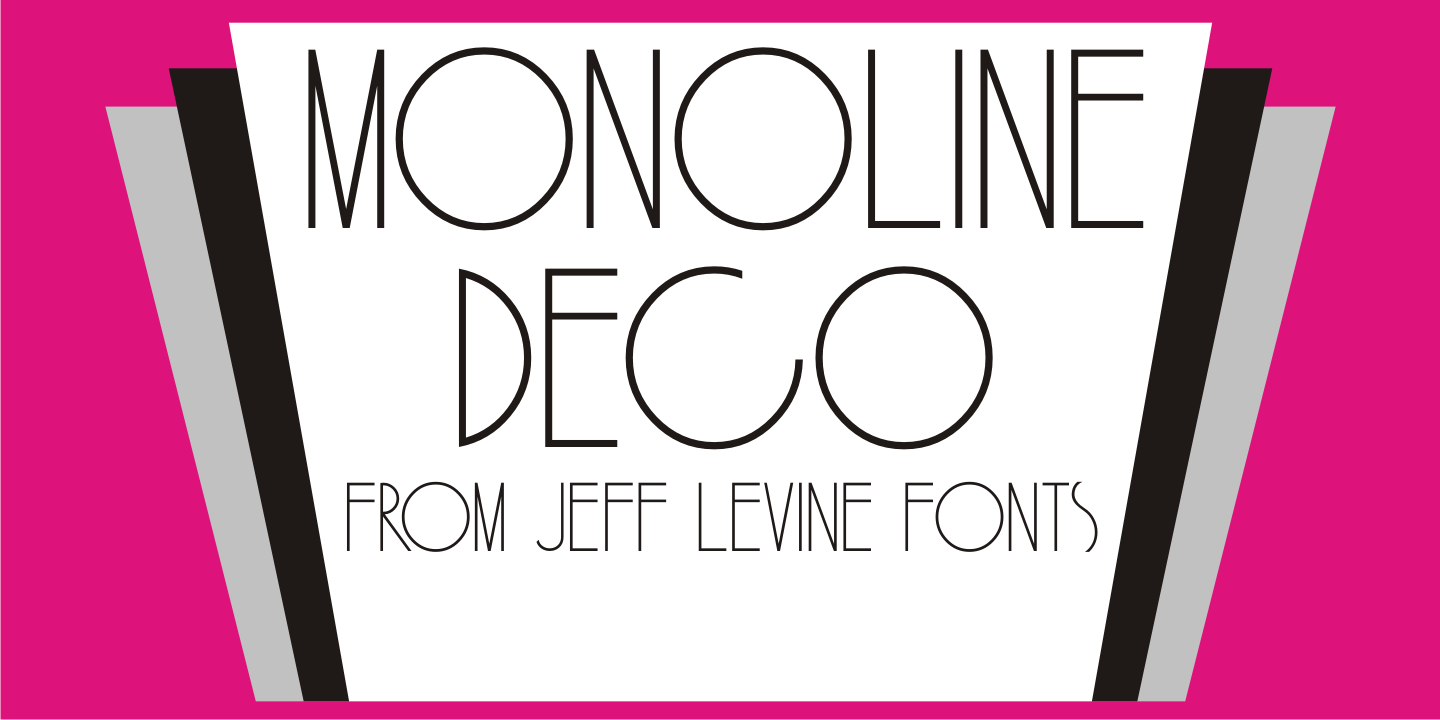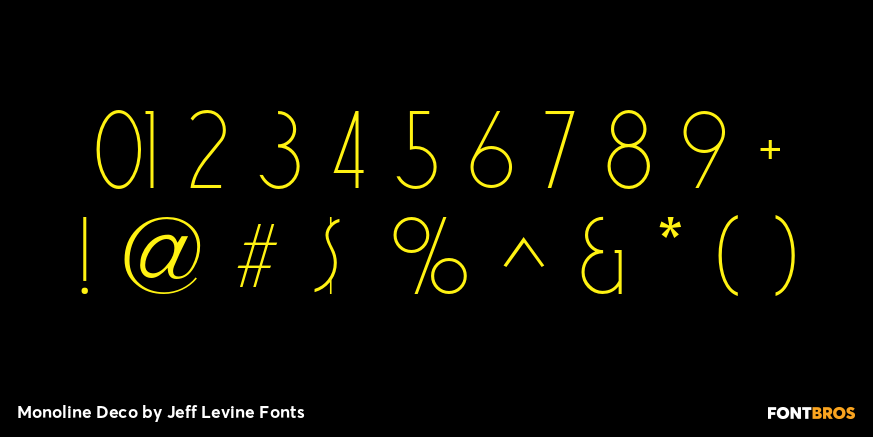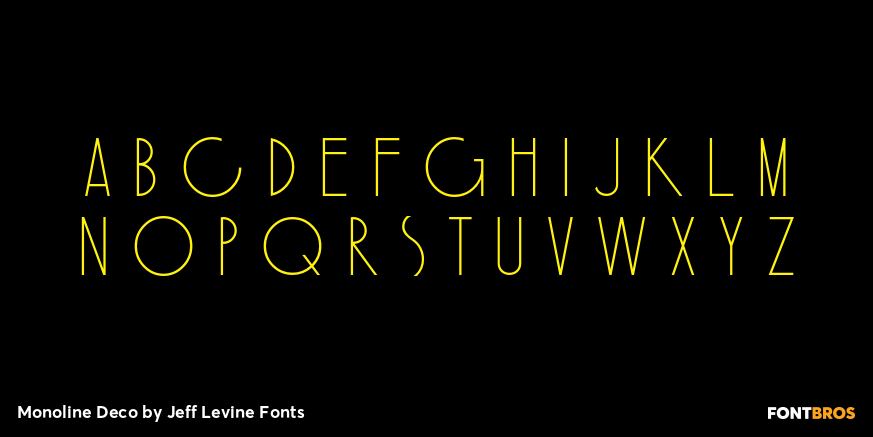
Monoline Deco
Monoline Deco JNL is a thin, elegant typeface that is reminiscent of the Art Deco Streamline influence of the 1930s and 1940s, complete with angular and truncated characters.
Monoline Deco JNL Regular by Jeff Levine Fonts